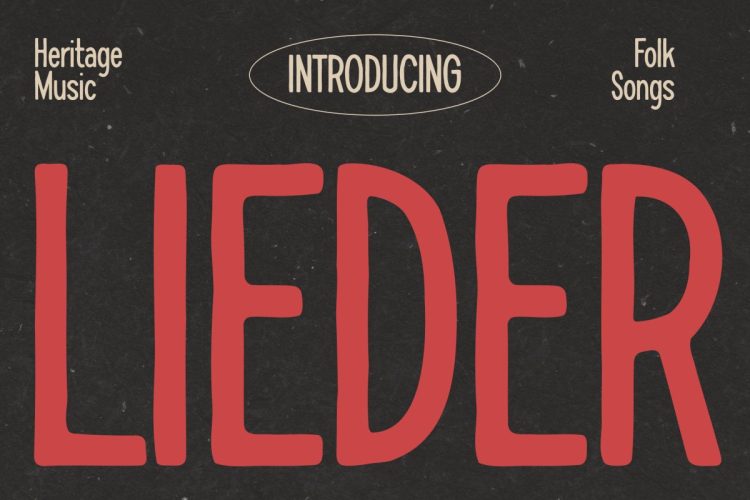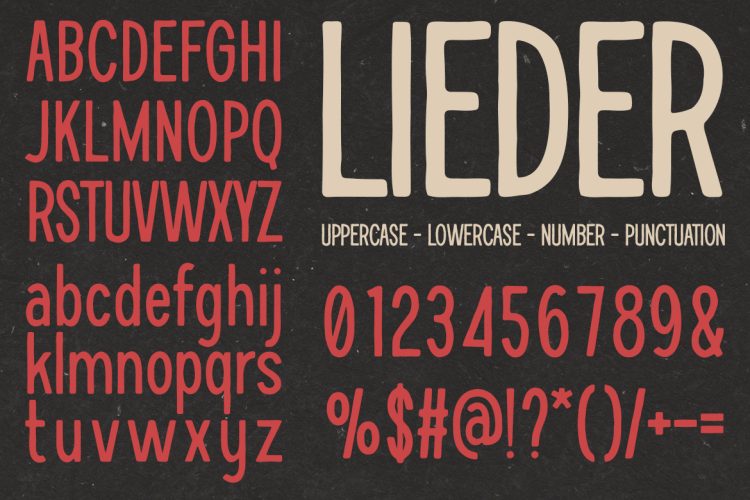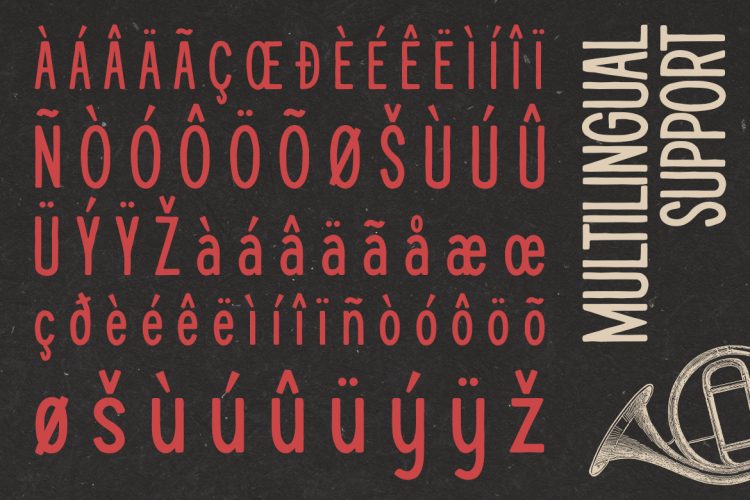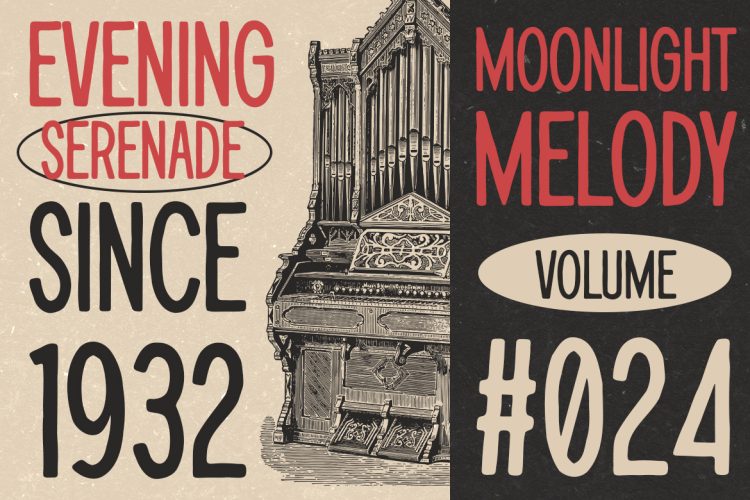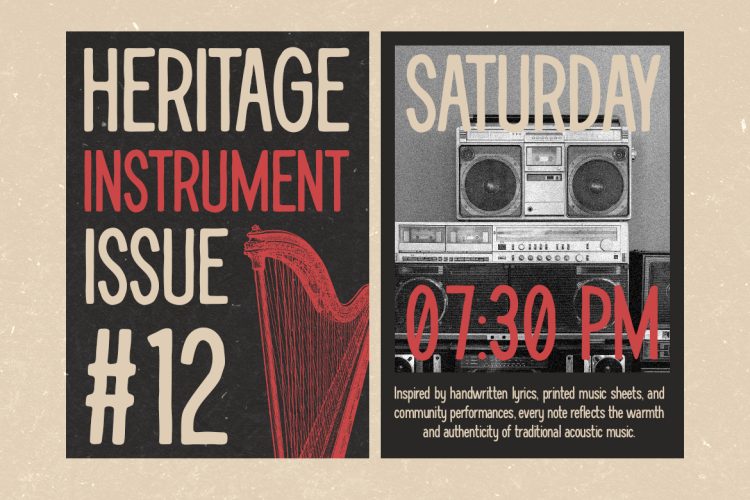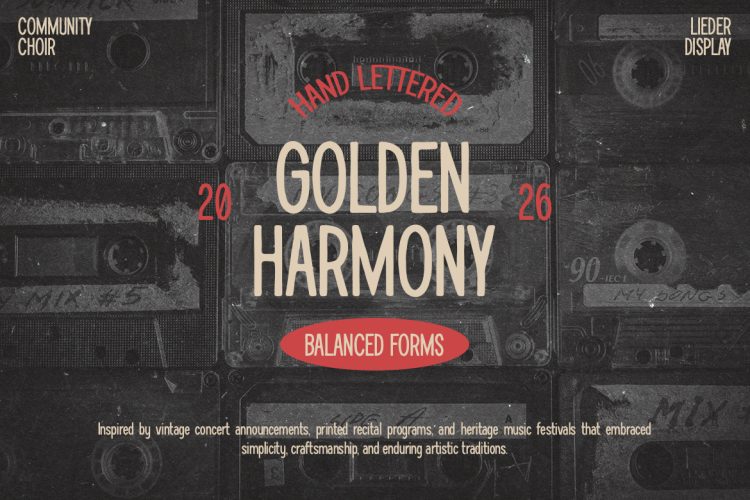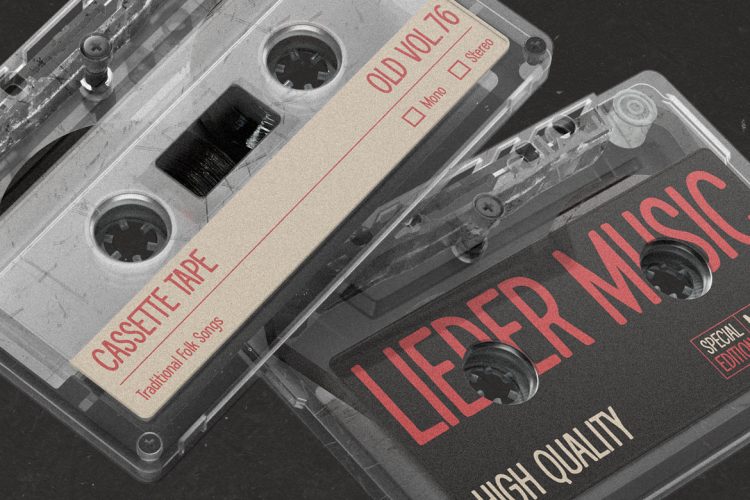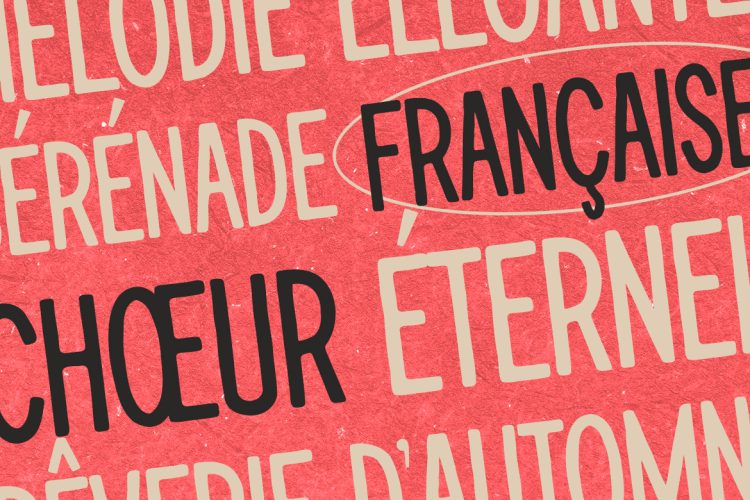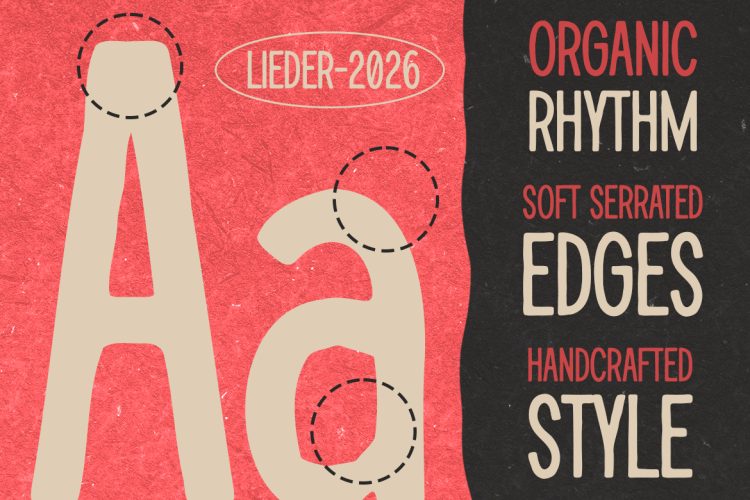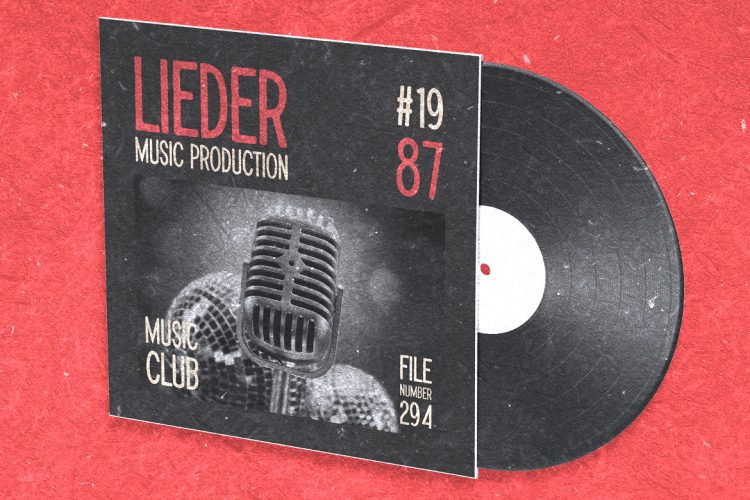
LIEDER โ Vintage Music Display Font with Bold Retro Soul
Retro Font LIEDER brings the timeless charm of vintage music culture into a bold and expressive display typeface. Inspired by classic record sleeves, concert posters, and nostalgic editorial typography, it combines tall handcrafted letterforms with a raw retro personality that instantly captures attention. Moreover, its clean yet distinctive structure delivers excellent readability without losing its authentic vintage appeal. As a result, every headline feels powerful, artistic, and full of character. Even better, LIEDER includes Multilingual Support for 67 languages, making it an excellent choice for international creative projects. Whether you’re designing for print or digital media, this font adds warmth, personality, and timeless style to every composition.
Why You’ll Love It Retro Font LIEDER
Furthermore, LIEDER is designed to create bold visual statements with minimal effort. In addition, its retro aesthetic blends beautifully with modern layouts, giving every project a unique handcrafted touch. Not only is it perfect for music-inspired branding, but it also enhances editorial designs, posters, album covers, packaging, merchandise, and social media graphics. Likewise, creative agencies, musicians, designers, content creators, cafรฉs, clothing brands, and vintage businesses can all benefit from its versatile personality. Consequently, every design feels more memorable, expressive, and authentic.
Bring Retro Back to Life